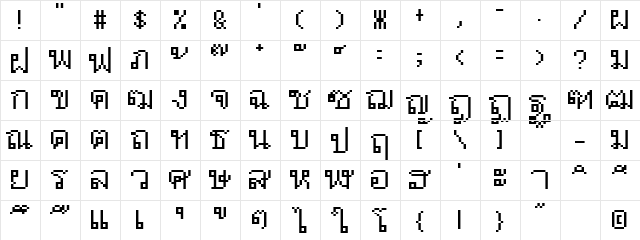
MD Thaitype T Regular
Design Context for MD Thaitype T Typeface
MD Thaitype T is a composed and adaptable typeface that performs quietly and consistently across a wide range of design contexts.
Pro Tip: Use MD Thaitype T in both headline and body roles to test its range before committing to a single application.